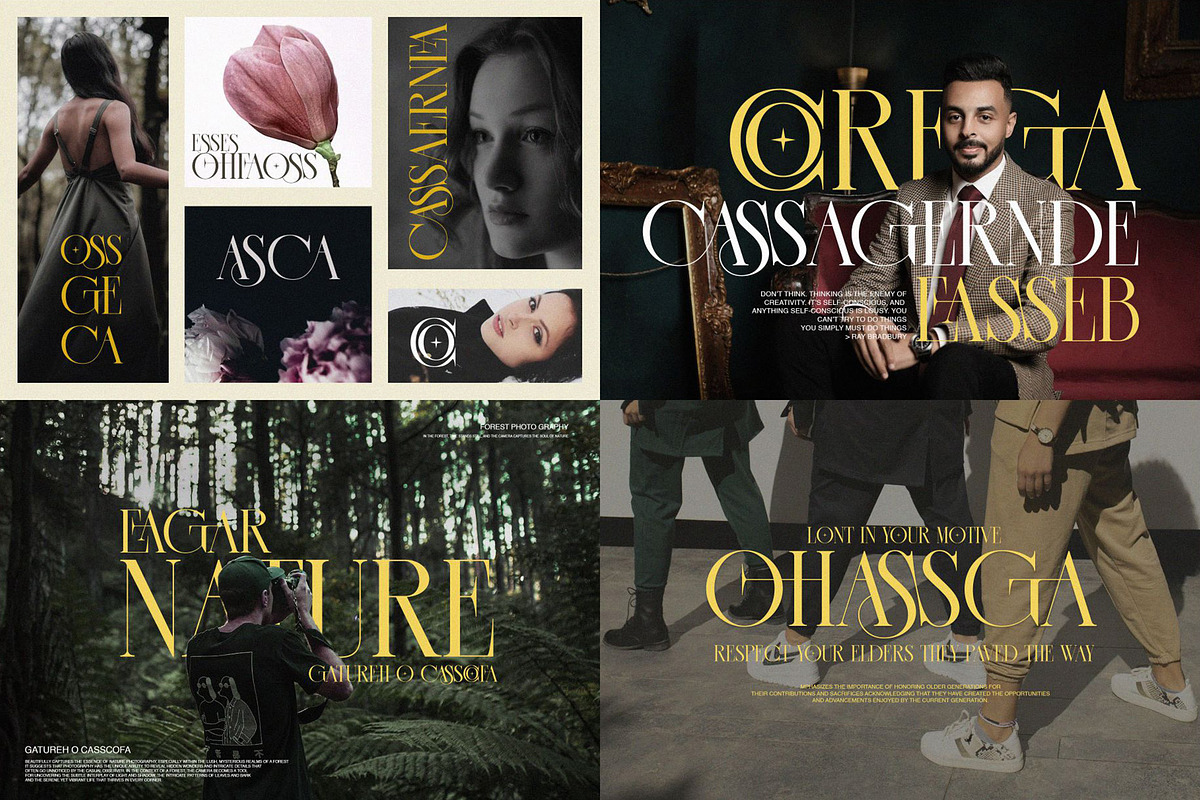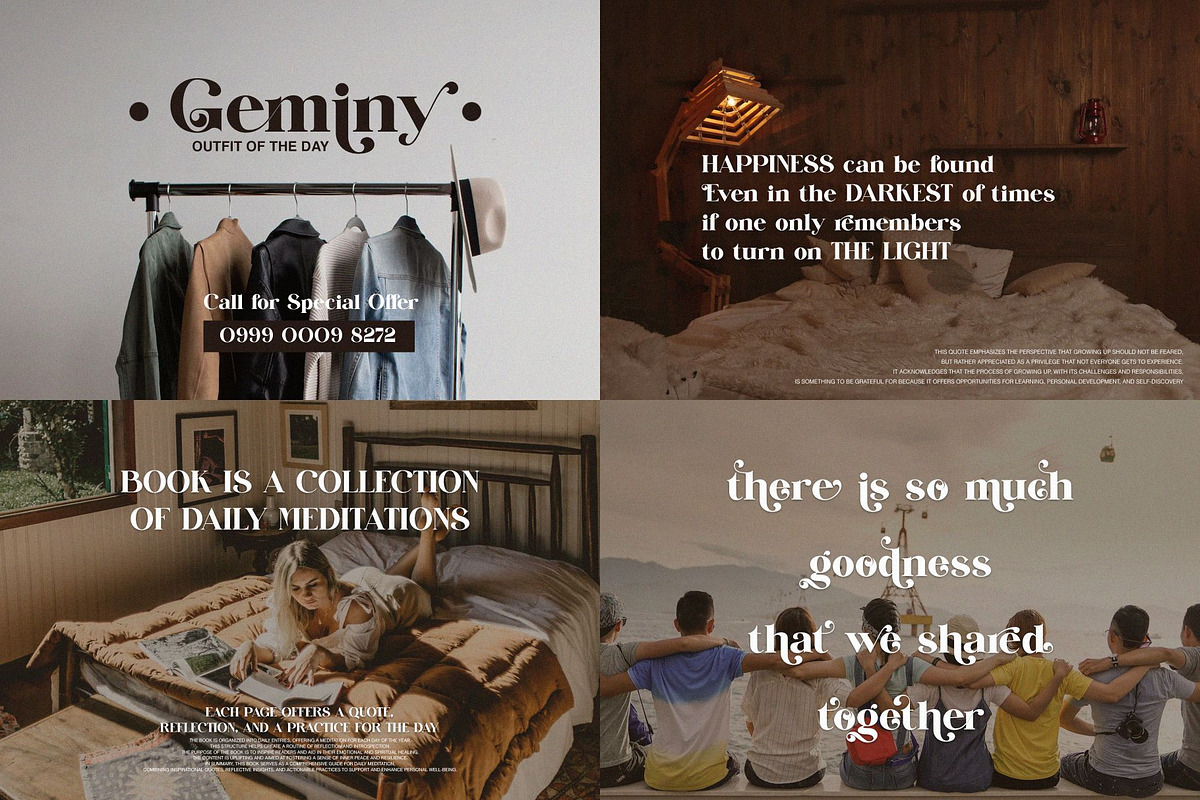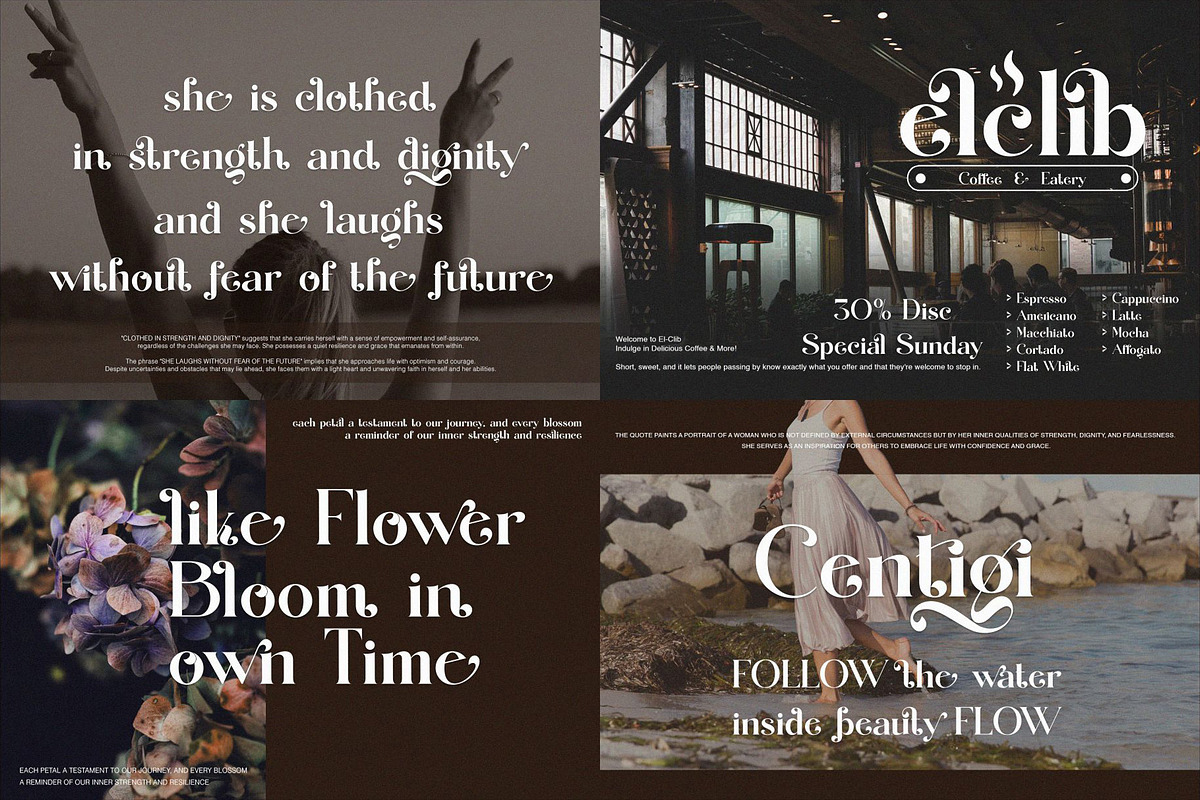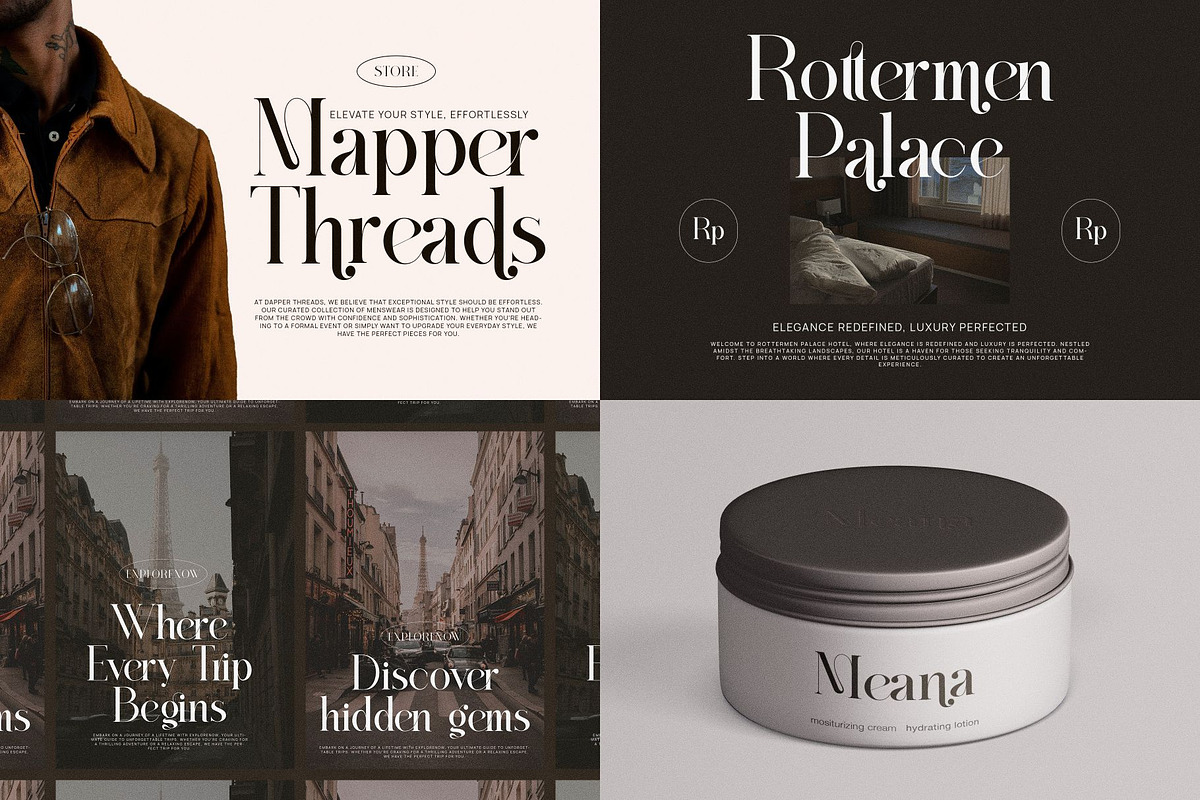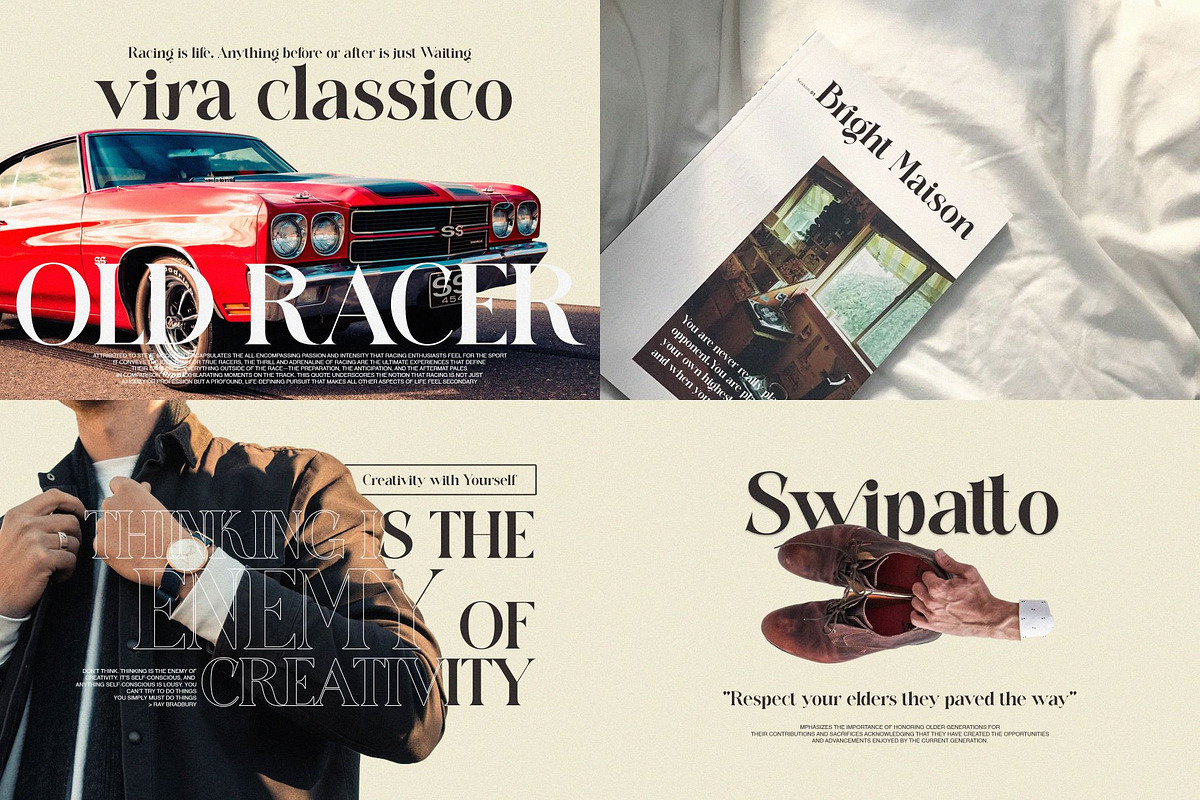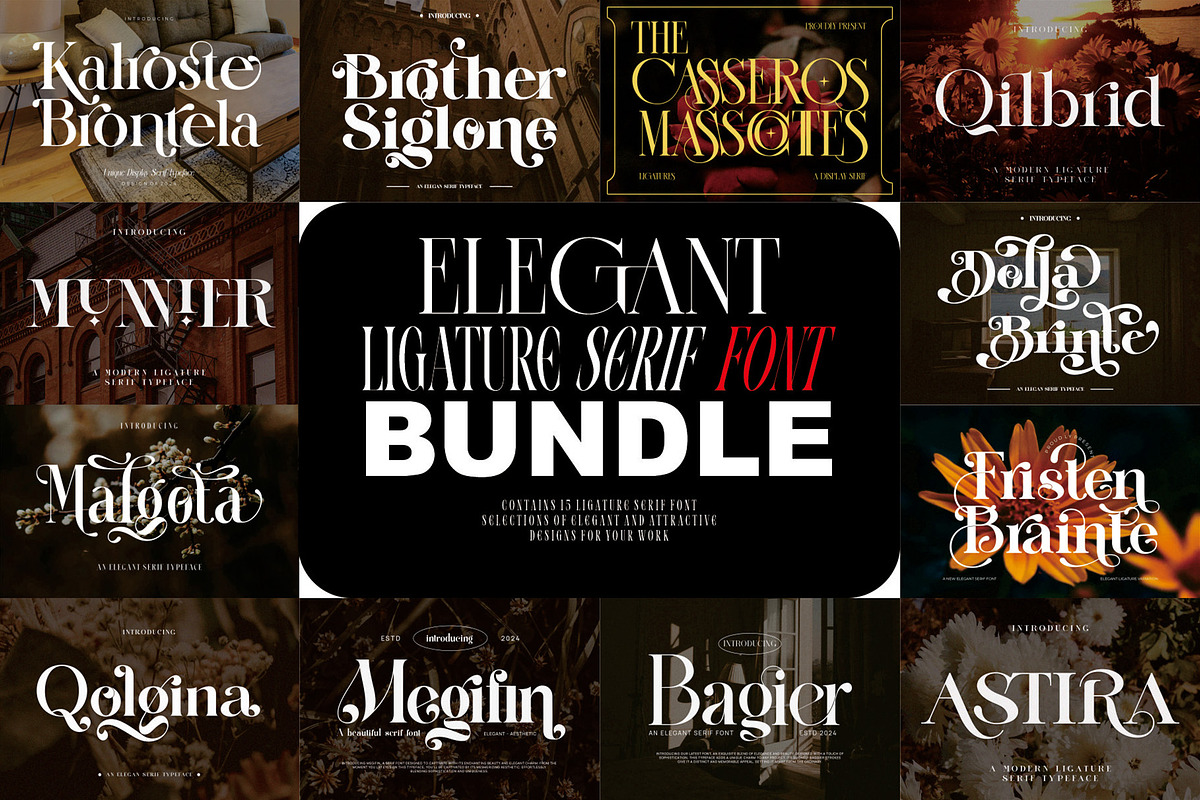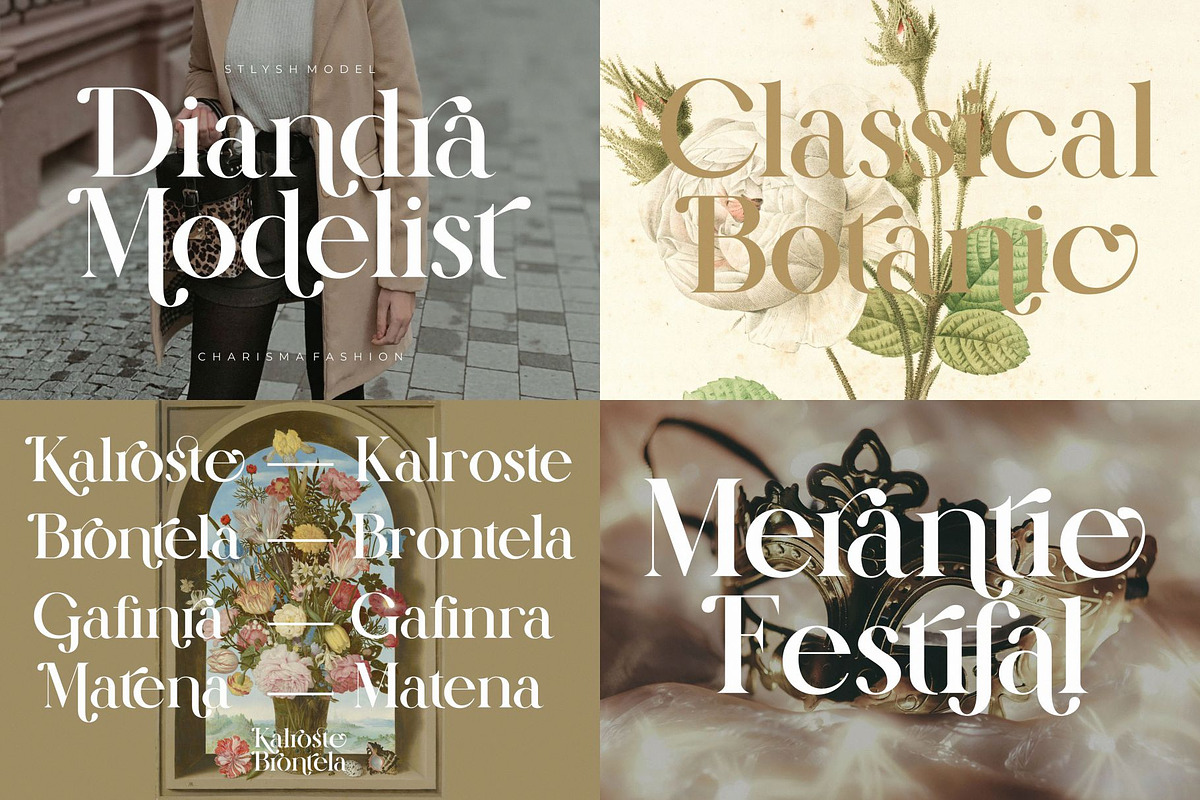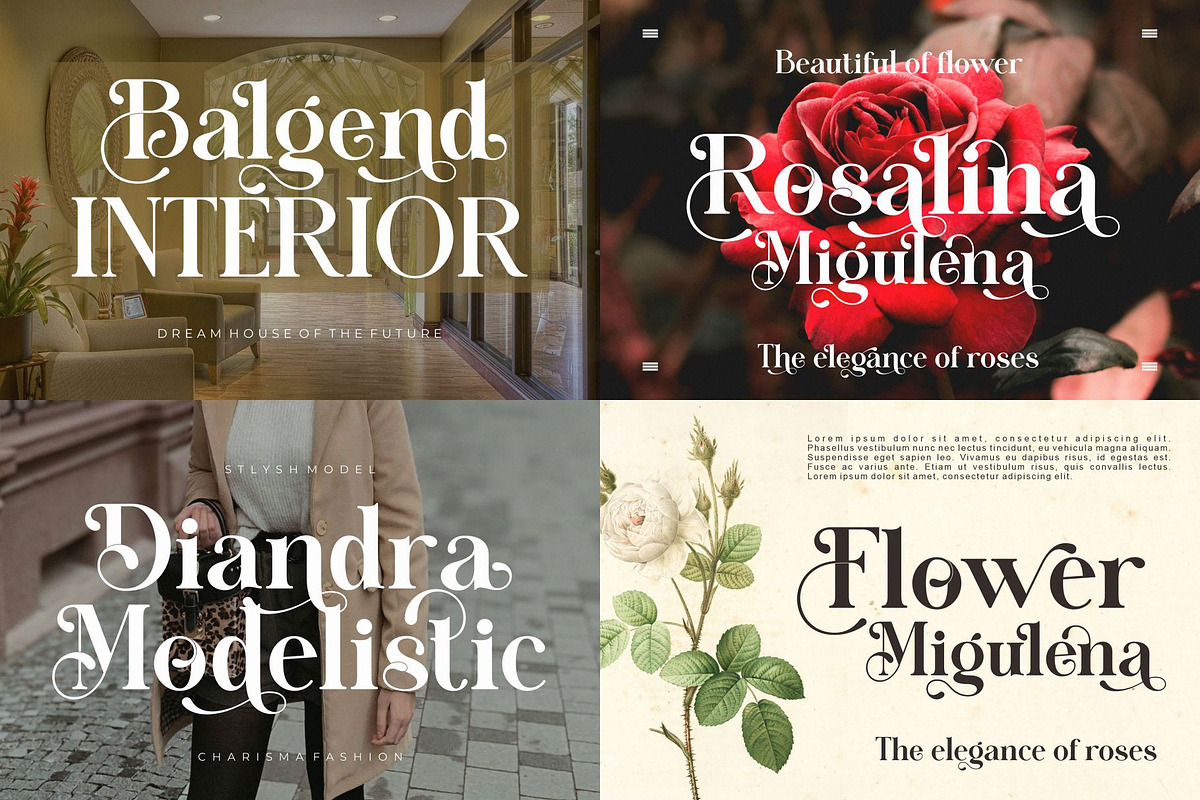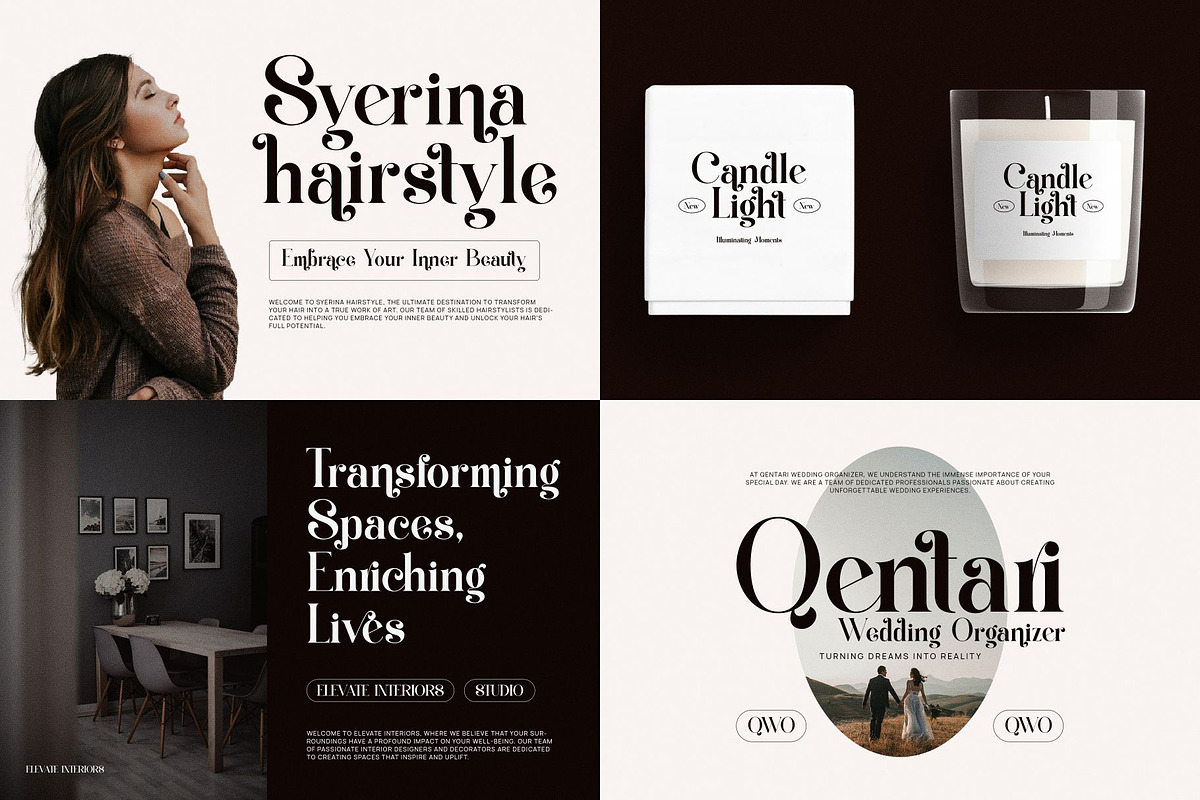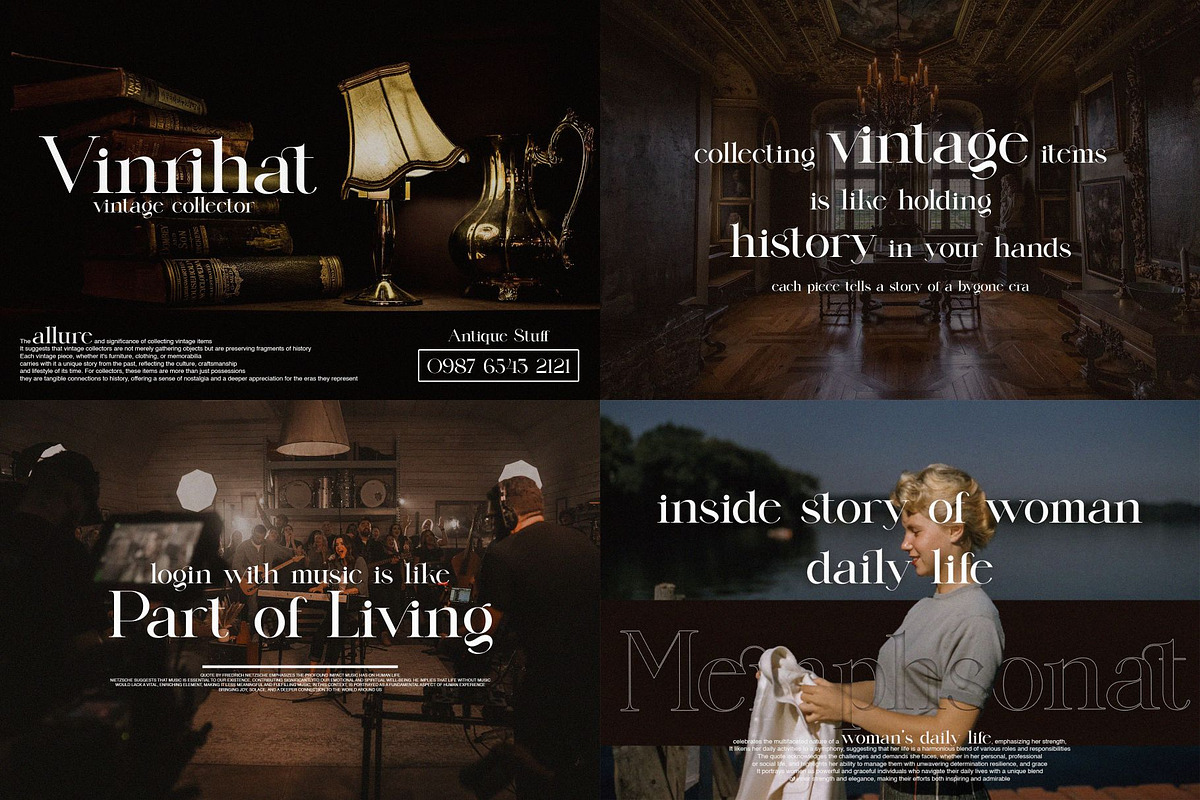
Elegant Ligature Serif Font Bundle
15 Ligature Serif Font Bundle – A Perfect Blend of Classic Elegance and Modern Flair
Discover the perfect combination of timeless elegance and modern innovation with the 15 Ligature Serif Font Bundle. This collection features carefully crafted serif fonts, each enhanced with unique ligatures to elevate the aesthetic of your typography. Ideal for a variety of design projects, from editorial layouts and branding to sophisticated logo design.
15 Serif Fonts with Ligatures: Each font in this bundle offers beautifully designed ligatures to enrich your text compositions.
Classic Meets Modern Design: A fusion of traditional serif shapes with contemporary touches, giving a luxurious and professional feel to your designs.
Versatile for Any Project: Perfect for print, branding, packaging, web design, and any creative project requiring high-end typography.
Integrated Ligatures: Every font comes with automatic ligatures to ensure smooth, balanced, and cohesive letter connections.
Complete Character Set: Includes uppercase letters, numbers, punctuation, and symbols, offering full flexibility for various languages and design needs.
Elegant & Refined Design: Each font is meticulously designed with attention to detail, making it perfect for high-end, professional projects .